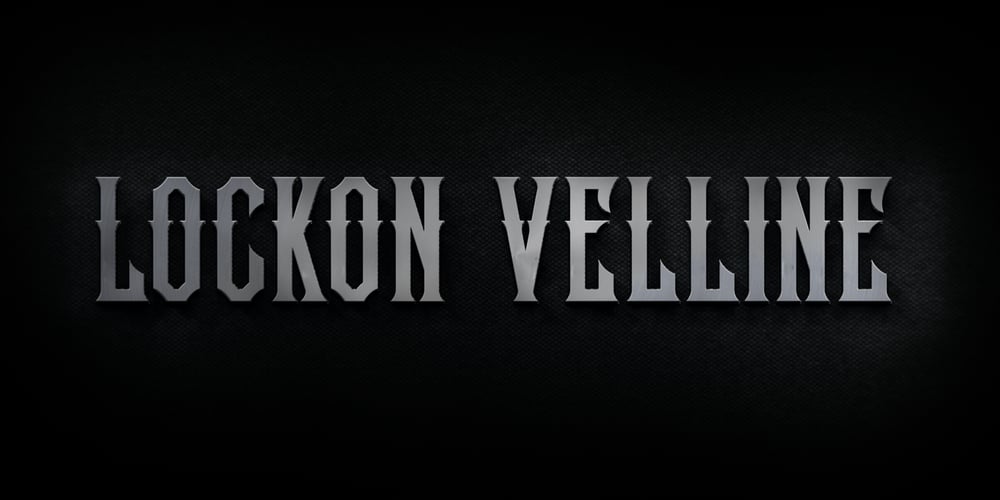
Lockon Velline
Lockon Velline font
Lockon Velline Font Family was designed by Cucu Supriyadi and published by Seventh Imperium. Lockon Velline contains 1 styles and family package options. Lockon Velline wass inspired from a biker and tattoo style with progressive edge and sharp tips, to make the fonts more bold and dynamic. Equipped with Open Type features to activate the stylistic alternates to play with as desired for your individual taste.